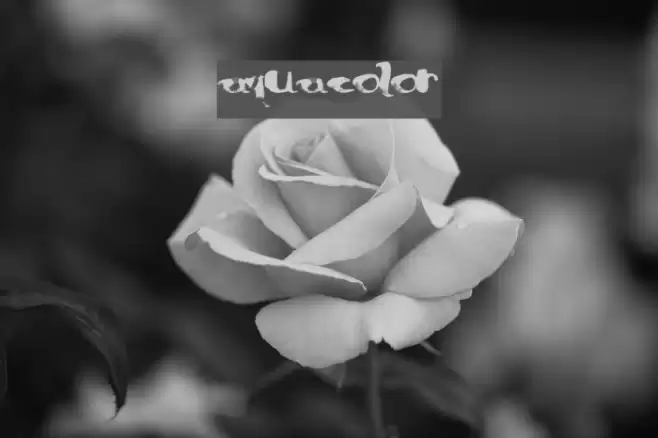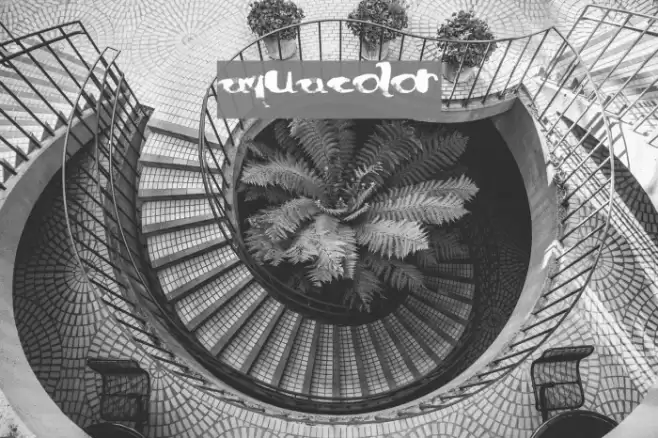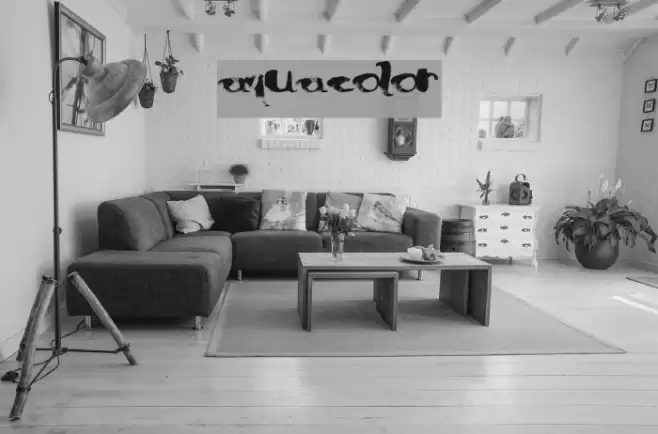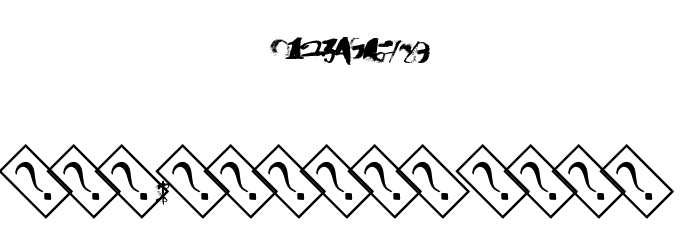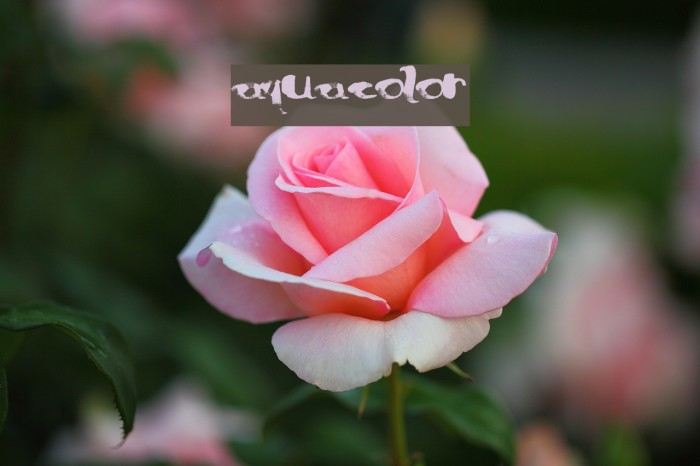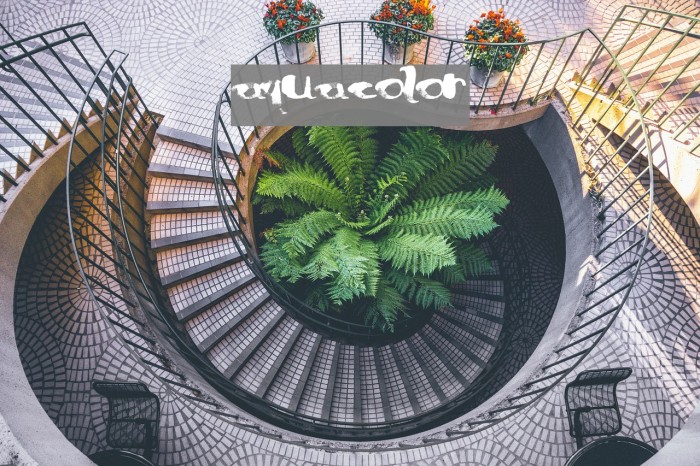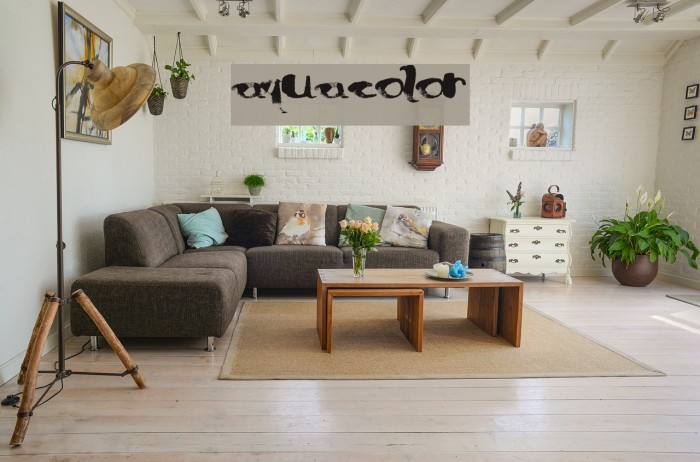
AquaColor Font
AquaColor Description
This font features a unique, artistic style with a distressed and textured appearance, giving it a hand-painted look. The characters are bold and have an irregular, organic form that suggests a sense of movement and fluidity. The uppercase and lowercase letters maintain a consistent style, with varying stroke widths that add to the dynamic feel. The numbers and special characters follow the same aesthetic, ensuring a cohesive look across all glyphs. This font is ideal for projects that require a creative and unconventional touch, making it perfect for artistic designs, posters, and branding that seeks to stand out.
A bold, textured font with a hand-painted, artistic style from Uncategorized fonts.
- Proposed Projects: Ideal for artistic designs, posters, branding, and creative projects seeking a unique touch.
- Overall Style: Artistic, Creative
- Use Case: Headlines, Logos, Artistic Designs